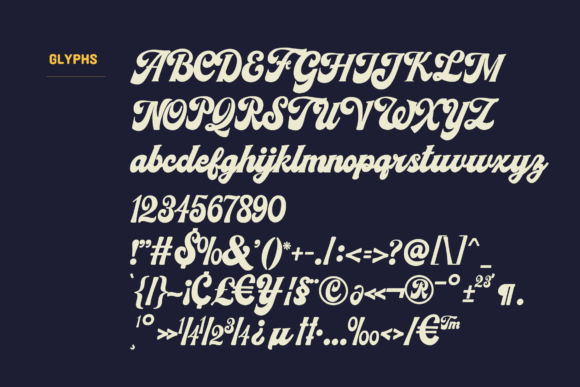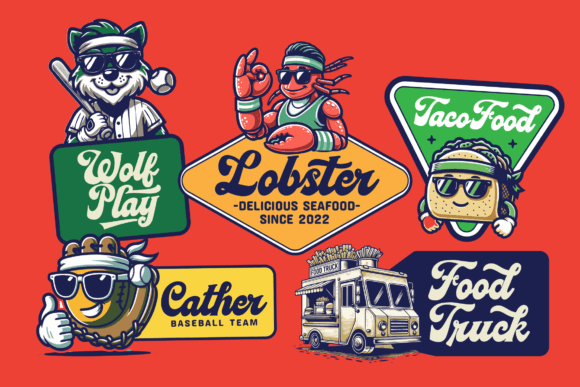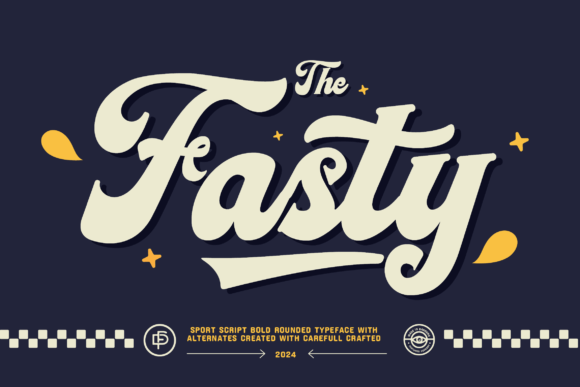
Fasty Font
Fasty Font is script font with a baseball theme brings the excitement and nostalgia of America’s favorite pastime to the forefront. Its flowing, cursive strokes emulate the graceful motion of a pitcher’s throw or a batter’s swing. The font’s design often incorporates elements like baseball seams, bats, or caps, adding a playful yet authentic touch. Each letter connects seamlessly.